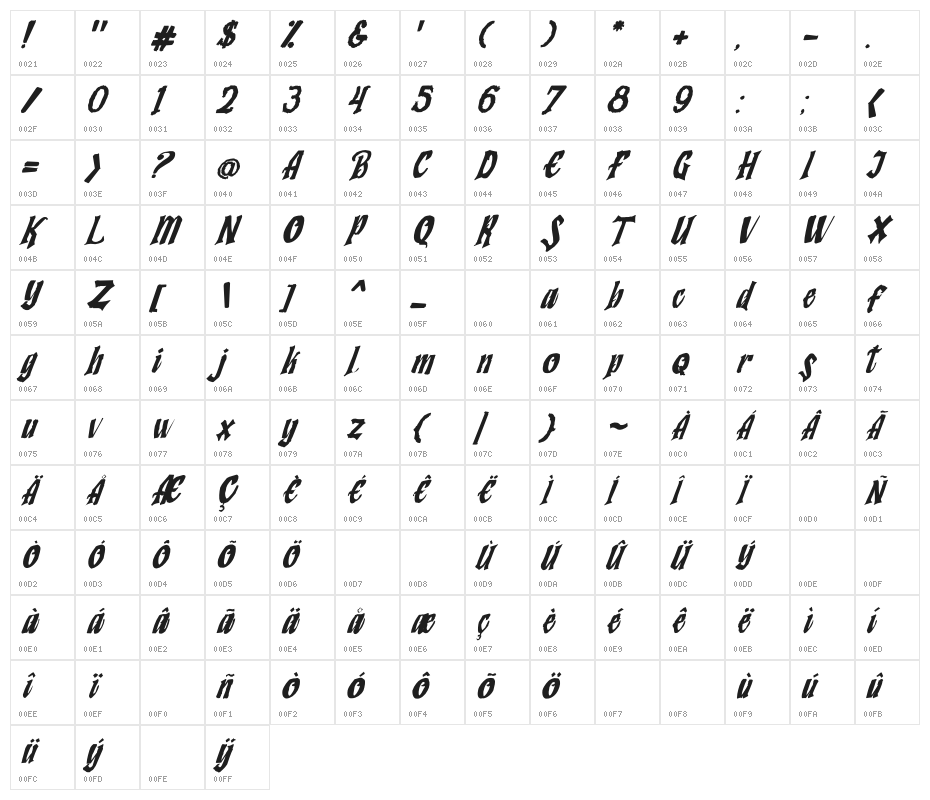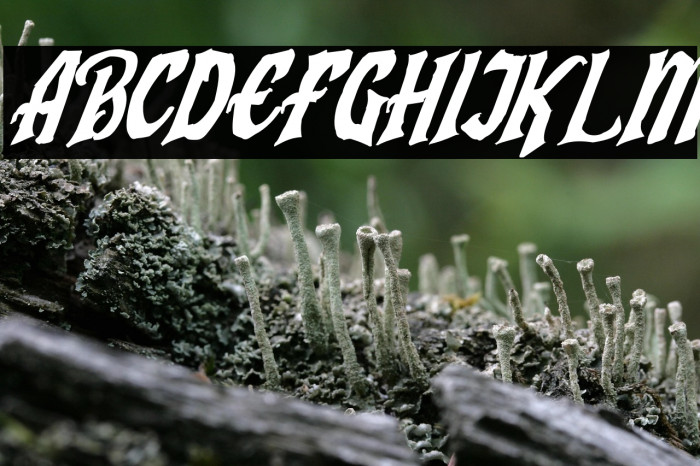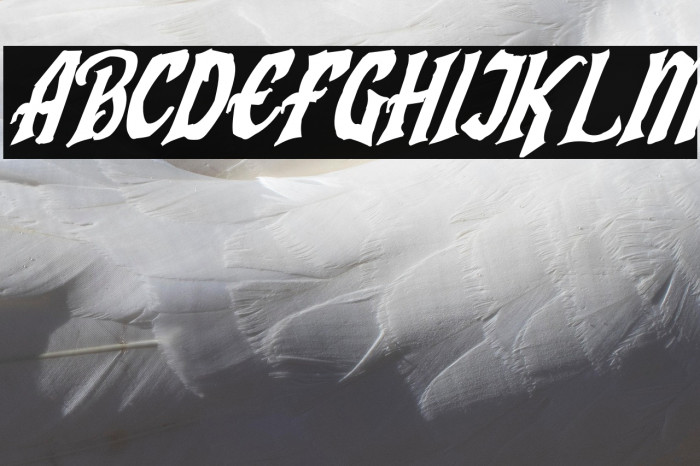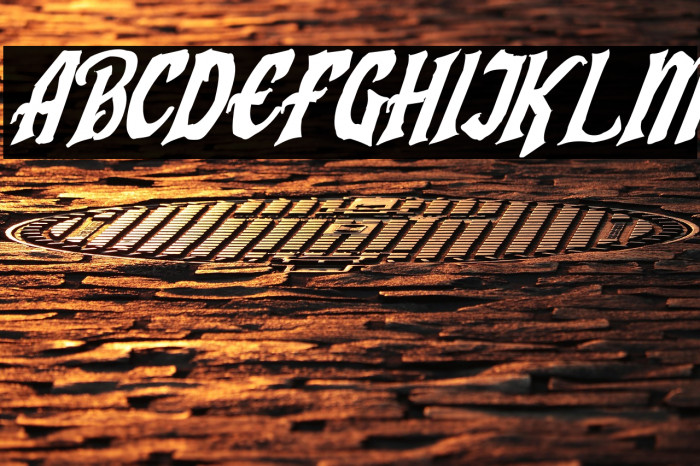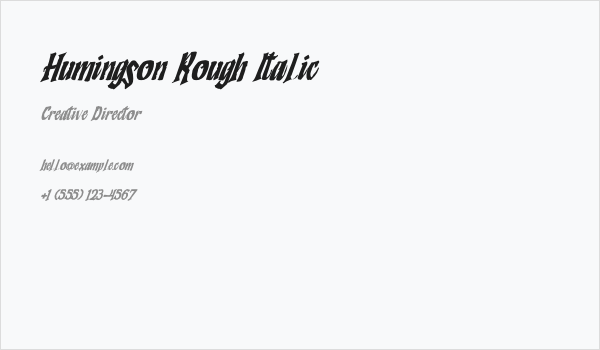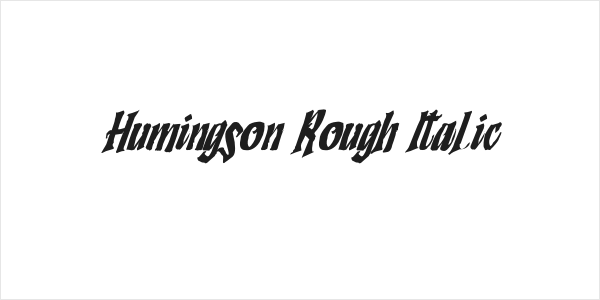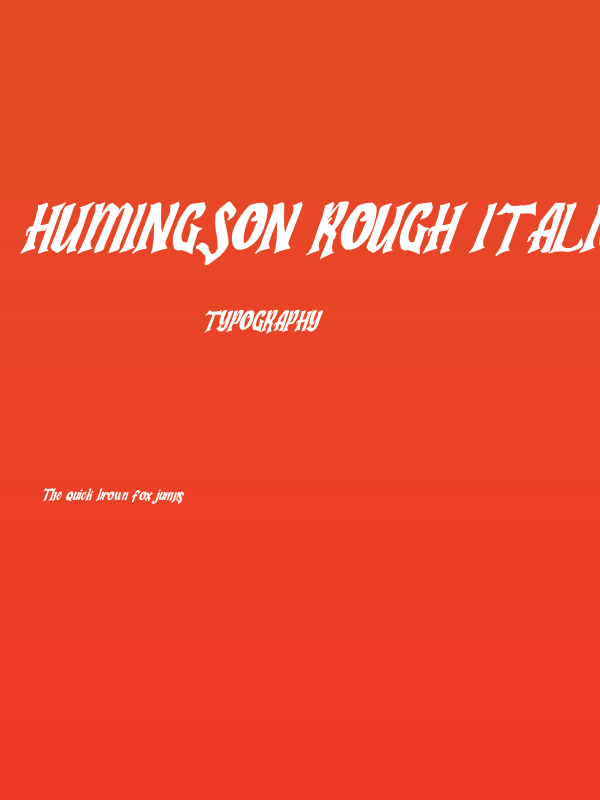
Humingson Rough Italic Font
Humingson Rough Italic Description
This font features a bold, dynamic style with a rough, textured appearance. The italicized letters add a sense of movement and energy, making it stand out with its unique, hand-drawn look. The uppercase and lowercase letters maintain a consistent slant, enhancing the font's cohesive aesthetic. The numbers and special characters follow the same design principles, ensuring uniformity across all elements. The rough edges and bold strokes give it a rugged, artistic feel, suitable for creative and impactful designs.